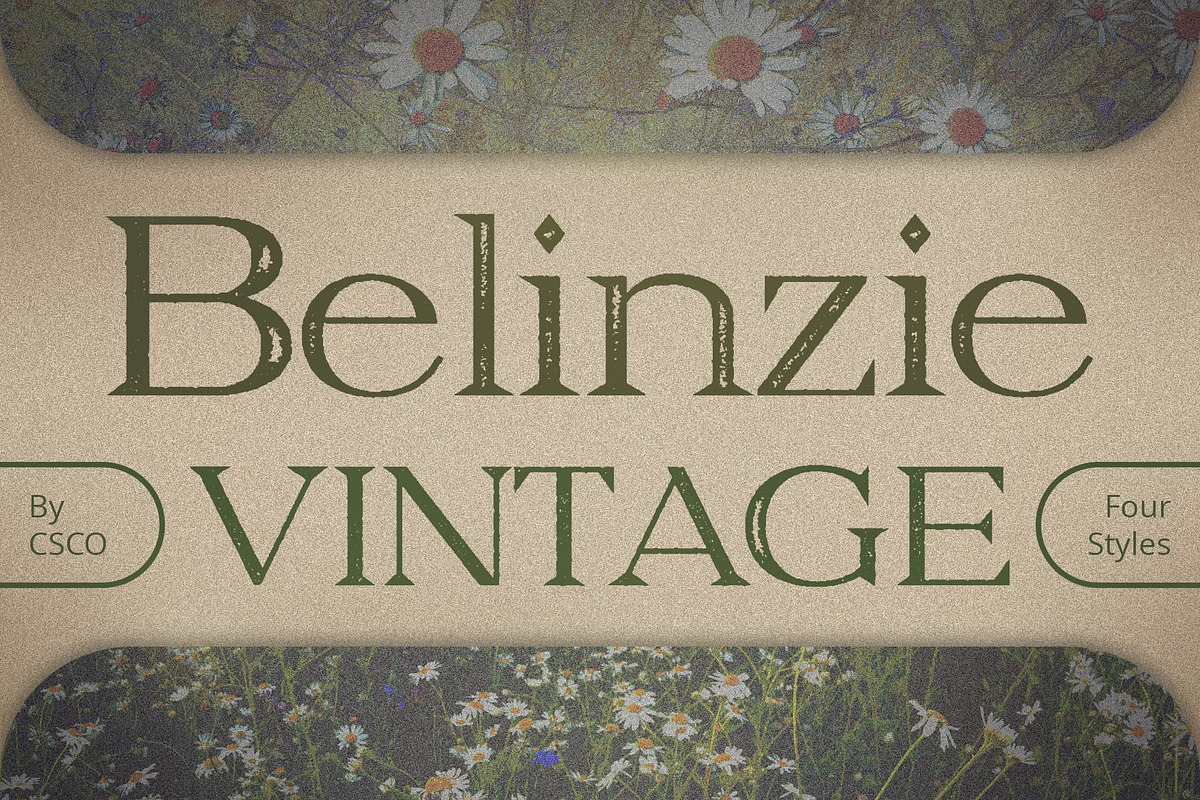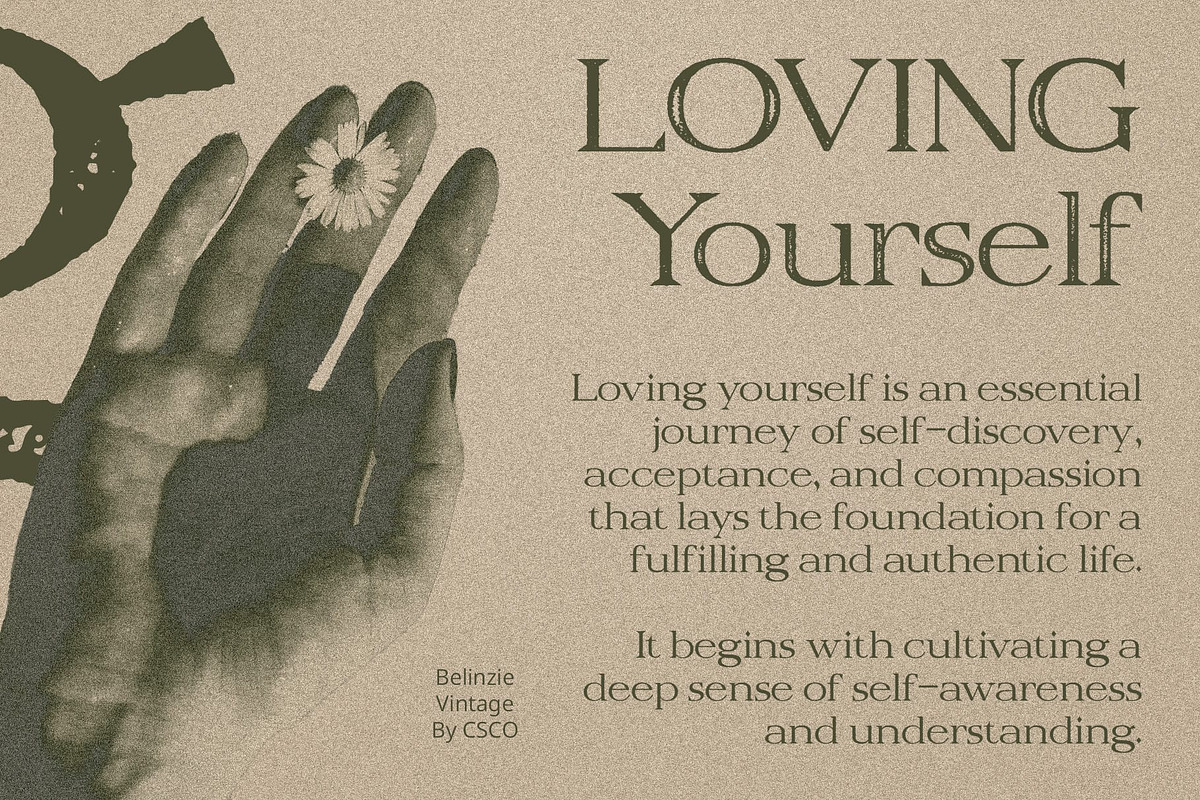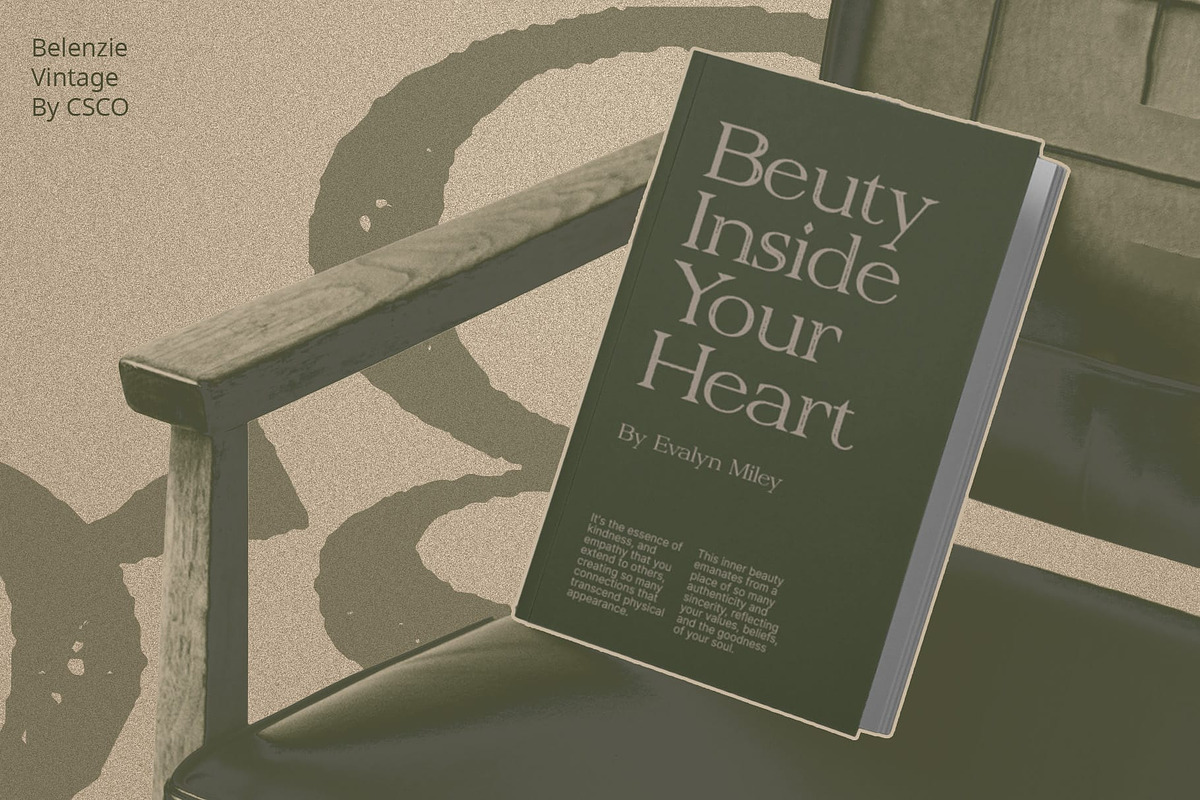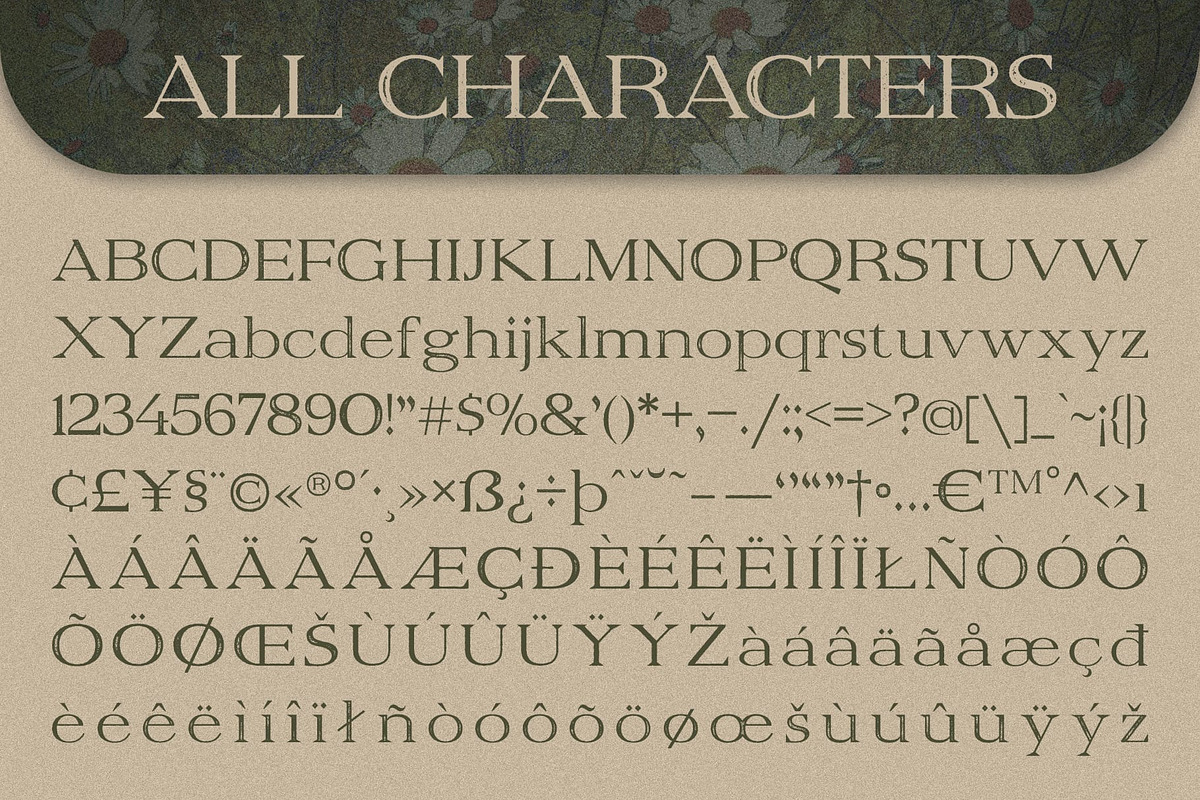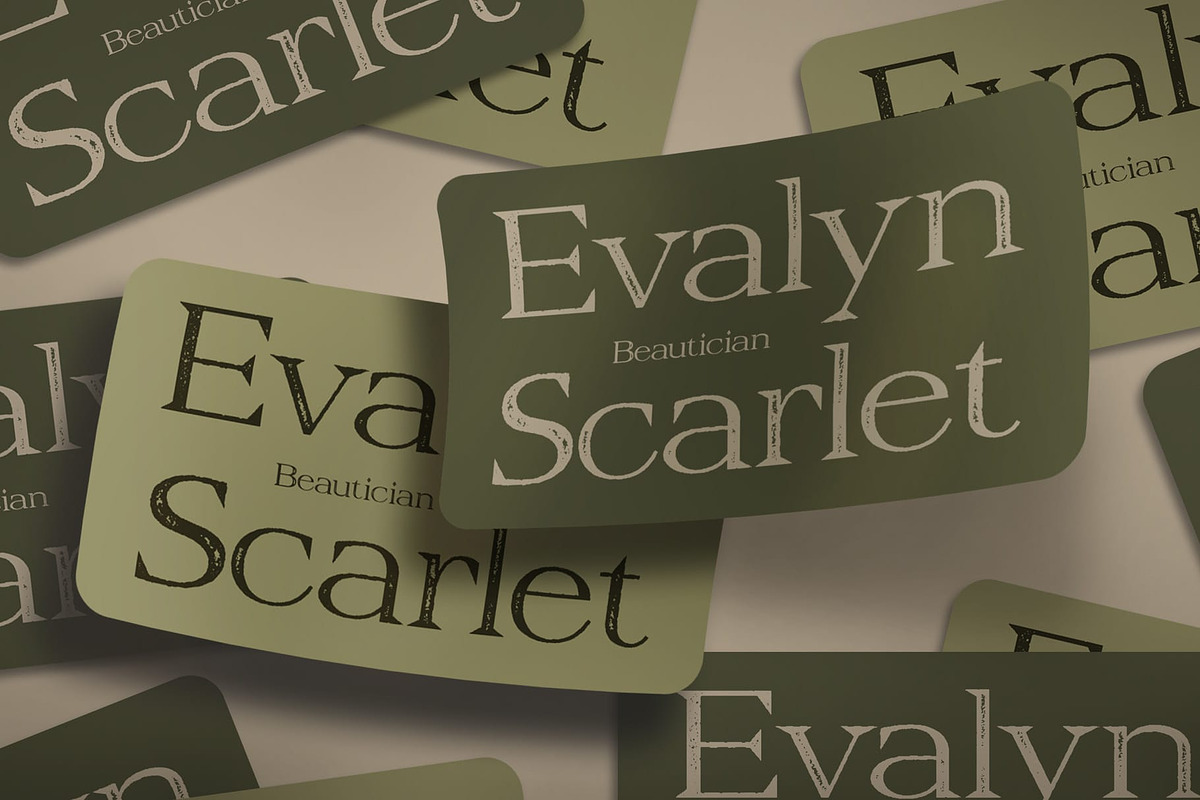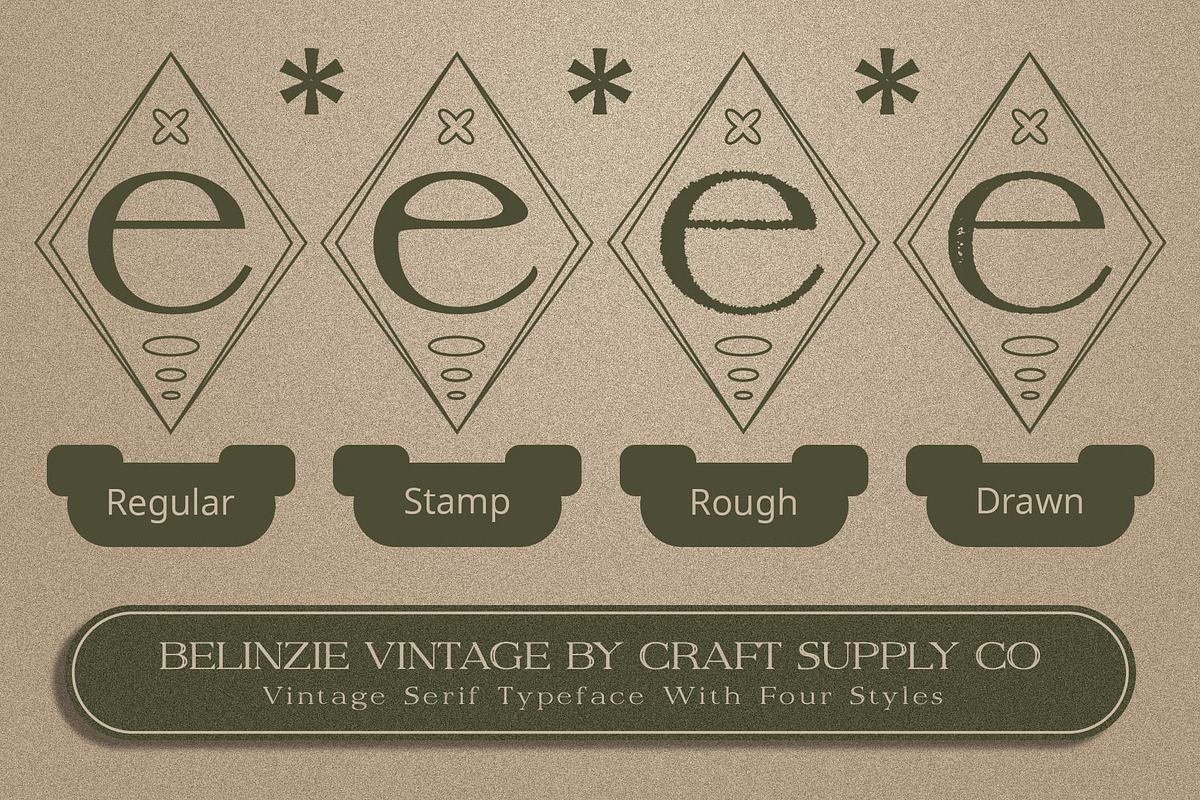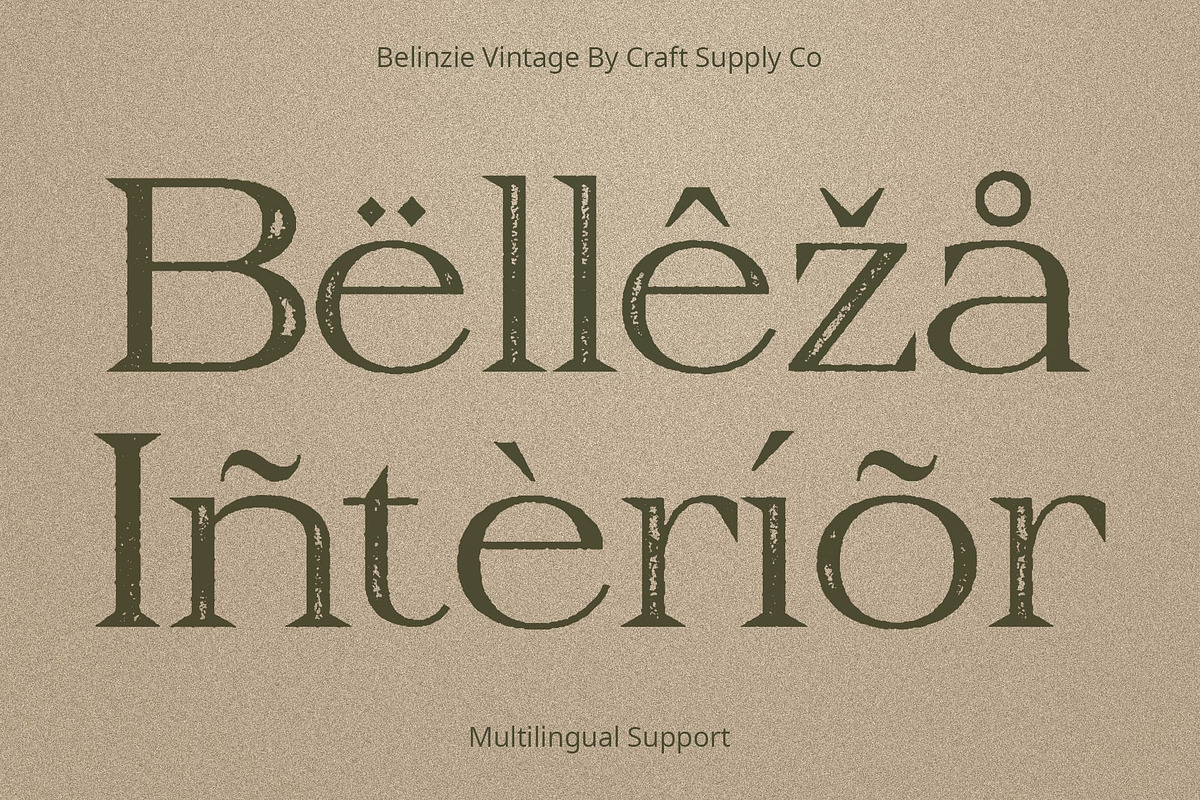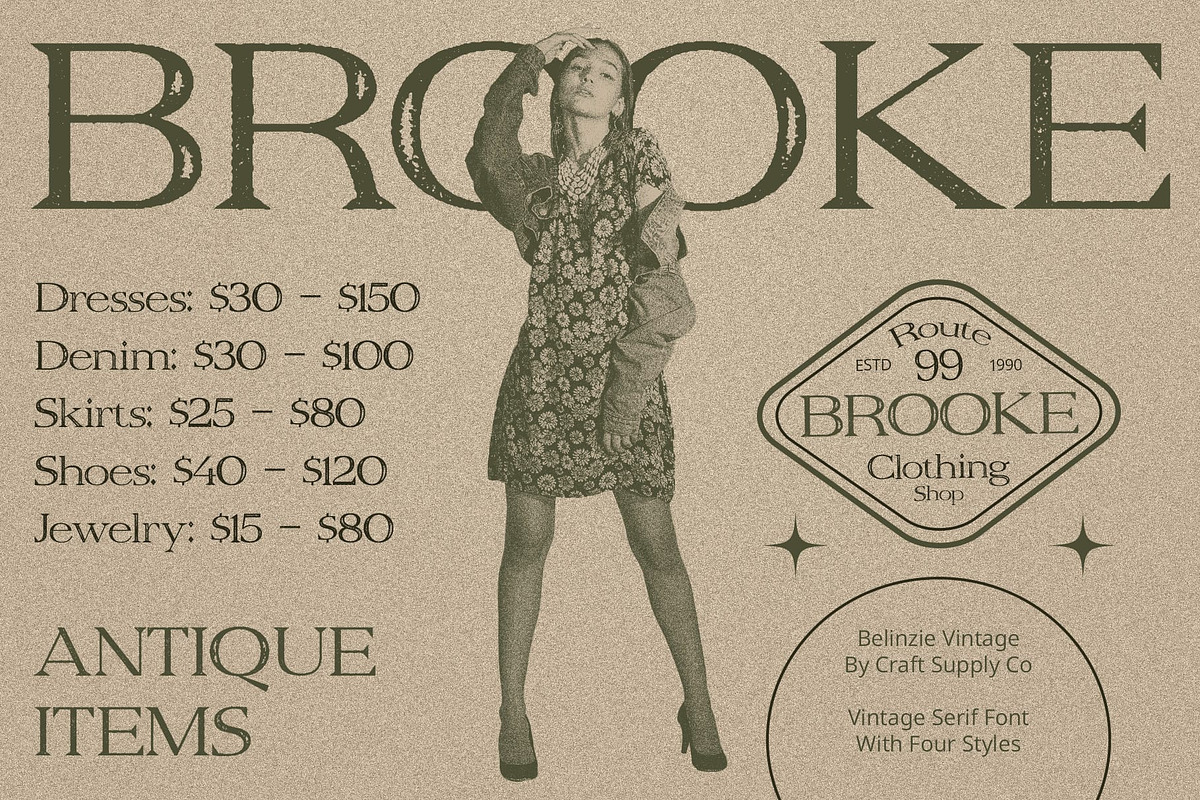
Belinzie Vintage
Belinzie Vintage: Embracing Vintage Elegance
Crisp Serif Design Belinzie Vintage boasts a crisp serif design, exuding a sense of authority and sophistication. Its sharp serifs command attention and lend a touch of refinement to any project.
Assertive Presence With its taut serif strokes and bold letterforms, This font makes a bold statement wherever it’s used. Its assertive presence demands attention and conveys confidence.
Rough Stamp Drawn Effect The font is enhanced with a rough stamp drawn effect, adding a vintage allure and rugged charm. Each character bears the marks of a bygone era, evoking nostalgia and authenticity.
Embracing Vintage Vibes This font fully embraces vintage aesthetics with its crisp serifs and rough stamp drawn effect. It transports viewers back in time, infusing designs with a timeless appeal and vintage elegance.
Vintage Sophistication Redefined This font epitomizes vintage sophistication with its crisp serifs and rugged charm. Its assertive presence and nostalgic allure make it an ideal choice for designers seeking to infuse their projects with vintage elegance and timeless appeal. Step into the past with Belinzie Vintage and elevate your designs with its vintage-inspired charm.
- Belinzie Regular
- Belinzie Drawn
- Belinzie Rough
- Belinzie Stamp